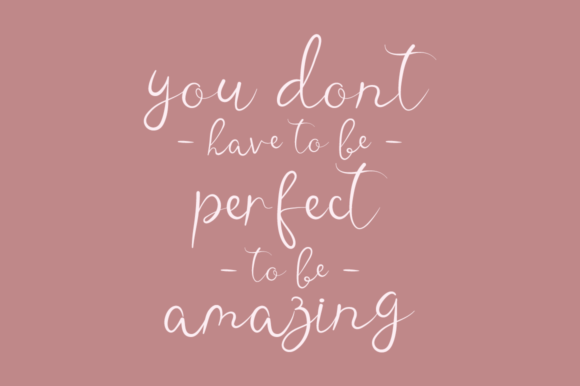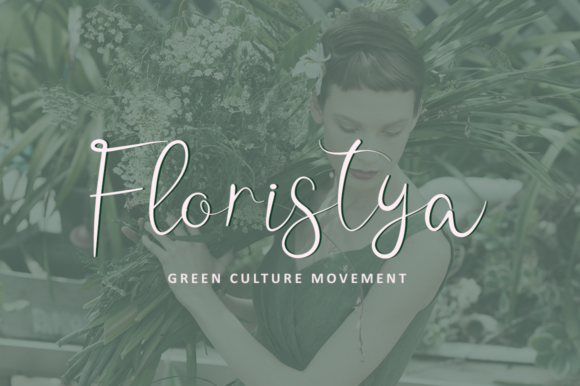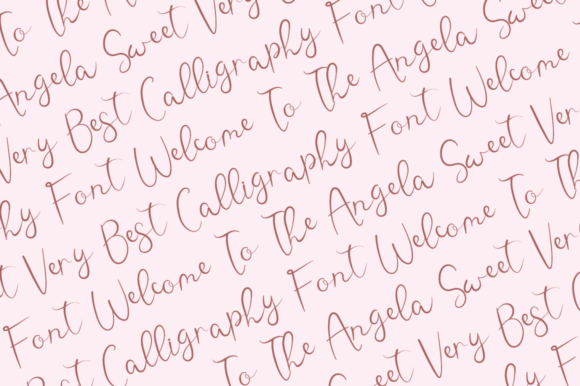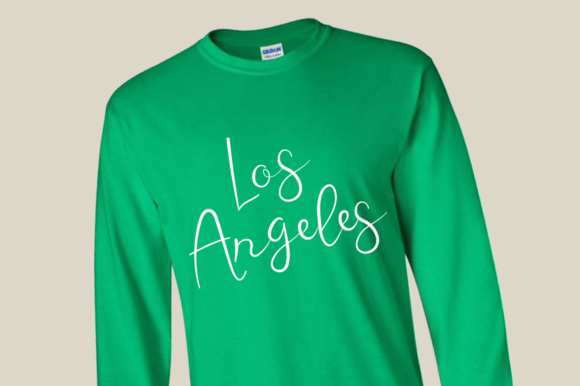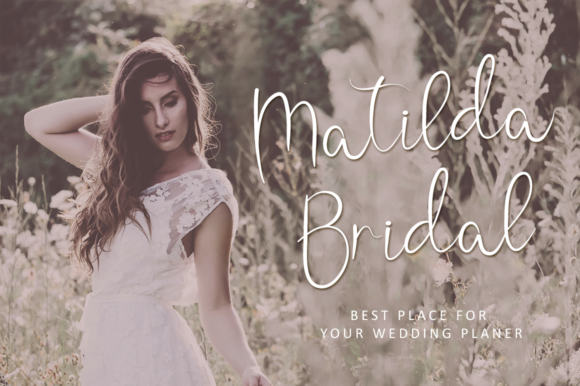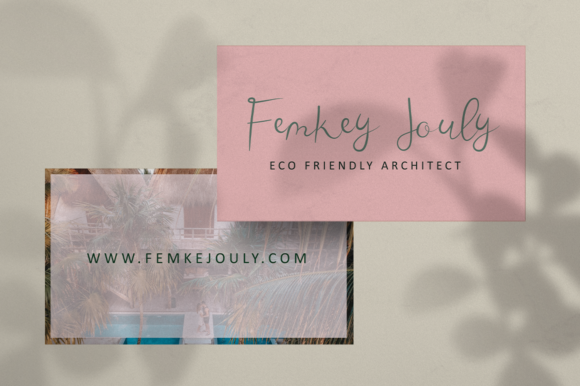
Discover the Elegance of Angela Sweet Font: Elevate Your Designs with This Beautiful Handwritten Font
Are you a designer or crafter looking for a font that can add a touch of elegance and sophistication to your creative projects? Look no further than Angela Sweet Font. This delicate, elegant, and flowing handwritten font is perfect for a wide range of designs, from wedding invitations and branding materials to digital products and craft projects. In this article, we’ll explore the features and benefits of Angela Sweet Font and show you how it can bring your designs to life.
The Characteristics of Angela Sweet Font
Angela Sweet Font is a beautifully crafted handwritten font that boasts well-balanced characters and a flowing script style. Its delicate and elegant appearance makes it perfect for designs that require a touch of sophistication and refinement. The font’s characters are carefully designed to ensure that they are clear and legible, even at small sizes, making it versatile for use in a variety of projects.
Why Choose Angela Sweet Font?
So, why should you choose Angela Sweet Font for your next design project? Here are just a few reasons:
- Versatility: Angela Sweet Font matches a wide pool of designs, making it a great addition to your font library. Whether you’re working on a wedding invitation, a branding project, or a digital product, this font is sure to complement your design.
- Elegance: The font’s delicate and elegant appearance adds a touch of sophistication to any design, making it perfect for projects that require a high level of refinement.
- Legibility: The well-balanced characters and clear lettering ensure that your text is easy to read, even at small sizes.
- Creativity: With Angela Sweet Font, you can add a personal touch to your designs and bring your creative ideas to life.
How to Use Angela Sweet Font in Your Designs
Angela Sweet Font is easy to use in a variety of design projects. Here are a few ideas to get you started:
- Wedding Invitations: Add a touch of elegance to your wedding invitations with Angela Sweet Font. The font’s delicate appearance is perfect for formal wedding designs.
- Branding: Use Angela Sweet Font to create a sophisticated brand identity for your business. The font’s elegant appearance is sure to make a lasting impression on your customers.
- Digital Products: Add a personal touch to your digital products, such as ebooks and printables, with Angela Sweet Font.
- Craft Projects: Use Angela Sweet Font to add a touch of elegance to your craft projects, such as handmade cards and gift tags.
Tips for Getting the Most Out of Angela Sweet Font
Here are a few tips for getting the most out of Angela Sweet Font:
- Experiment with different sizes: Angela Sweet Font is legible at small sizes, but it’s also beautiful at larger sizes. Experiment with different sizes to find the one that works best for your design.
- Pair it with other fonts: Angela Sweet Font pairs well with a variety of other fonts. Experiment with different font combinations to find the one that works best for your design.
- Use it in combination with images: Angela Sweet Font looks beautiful in combination with images. Use it to add a touch of elegance to your designs and create a cohesive look.
Angela Sweet Font is a beautiful and elegant handwritten font that is perfect for designers and crafters looking to add a touch of sophistication to their creative projects. With its well-balanced characters, delicate appearance, and versatility, this font is sure to become a staple in your font library. Whether you’re working on a wedding invitation, a branding project, or a digital product, Angela Sweet Font is sure to bring your designs to life.